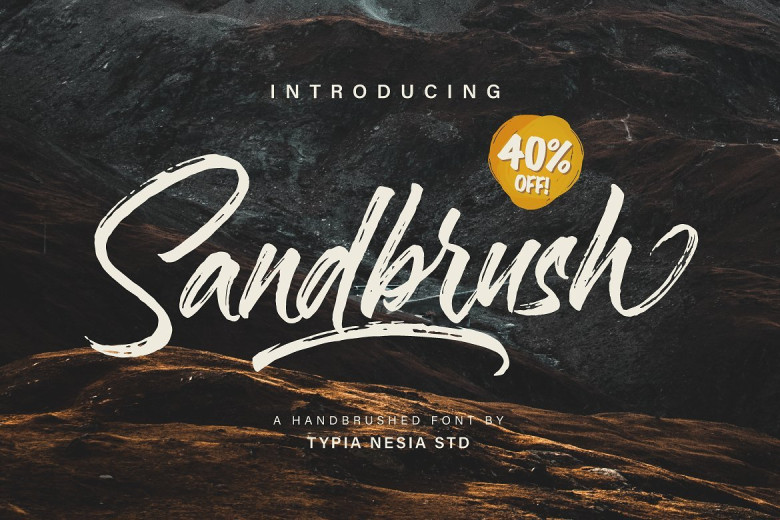
Sandbrush Brush Font
Introducing a handbrushed font by Typia Nesia. Sandbrush is a natural hand brushed font. Work great for any design needs : logo, branding, modern advertising design, logos, poster quote, book / cover Title, editorial design, website / blog, card, custom mug, pillow, t-shirts, and any hand-lettered needs.